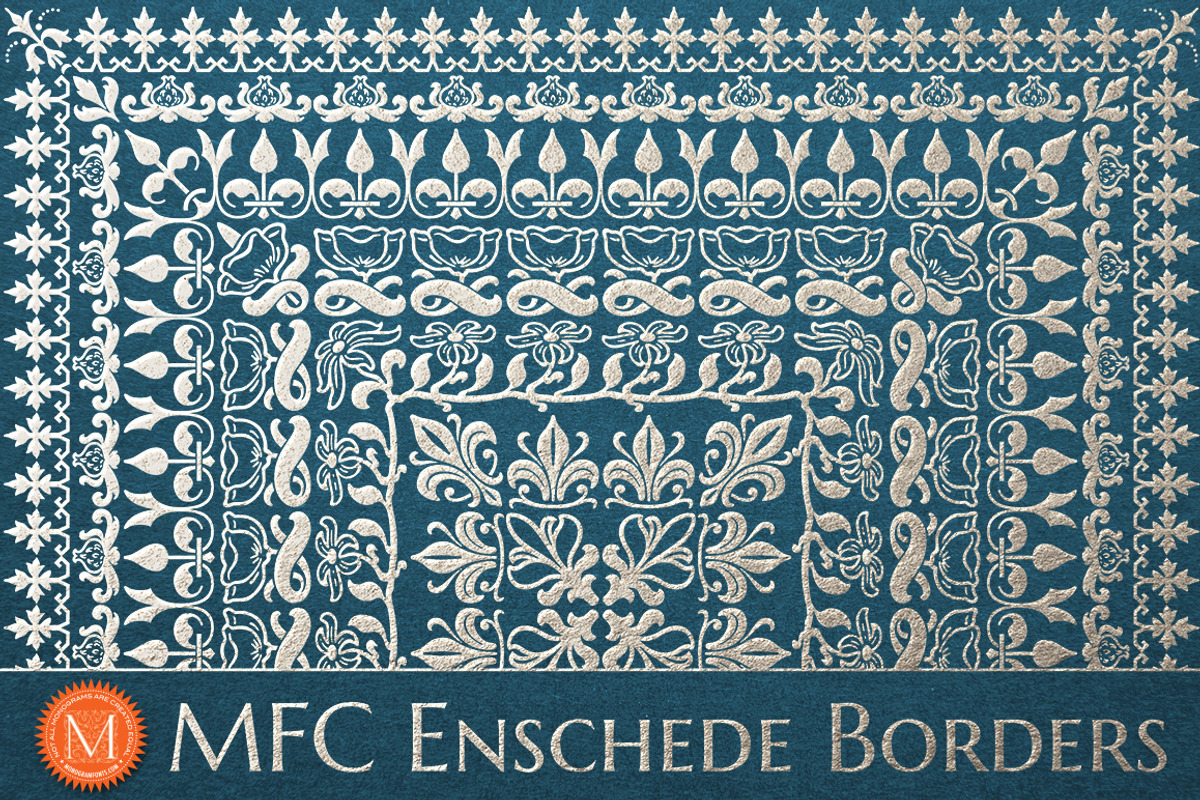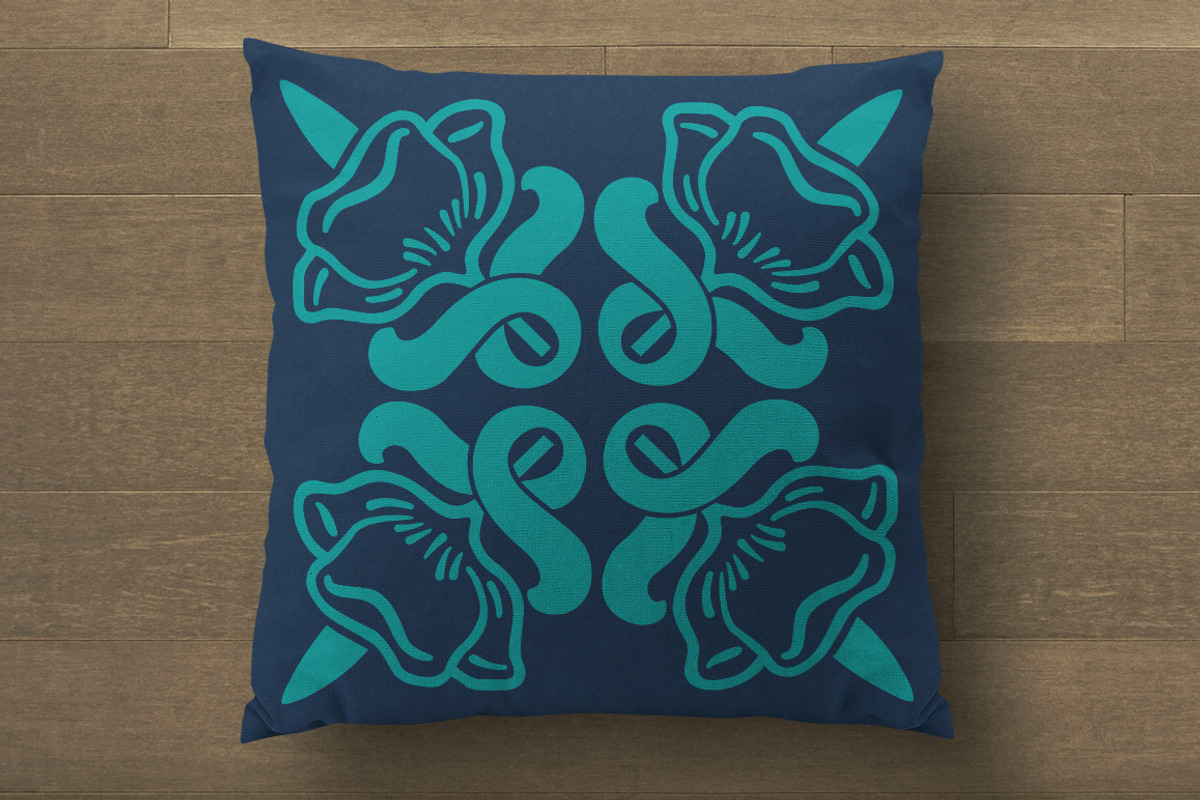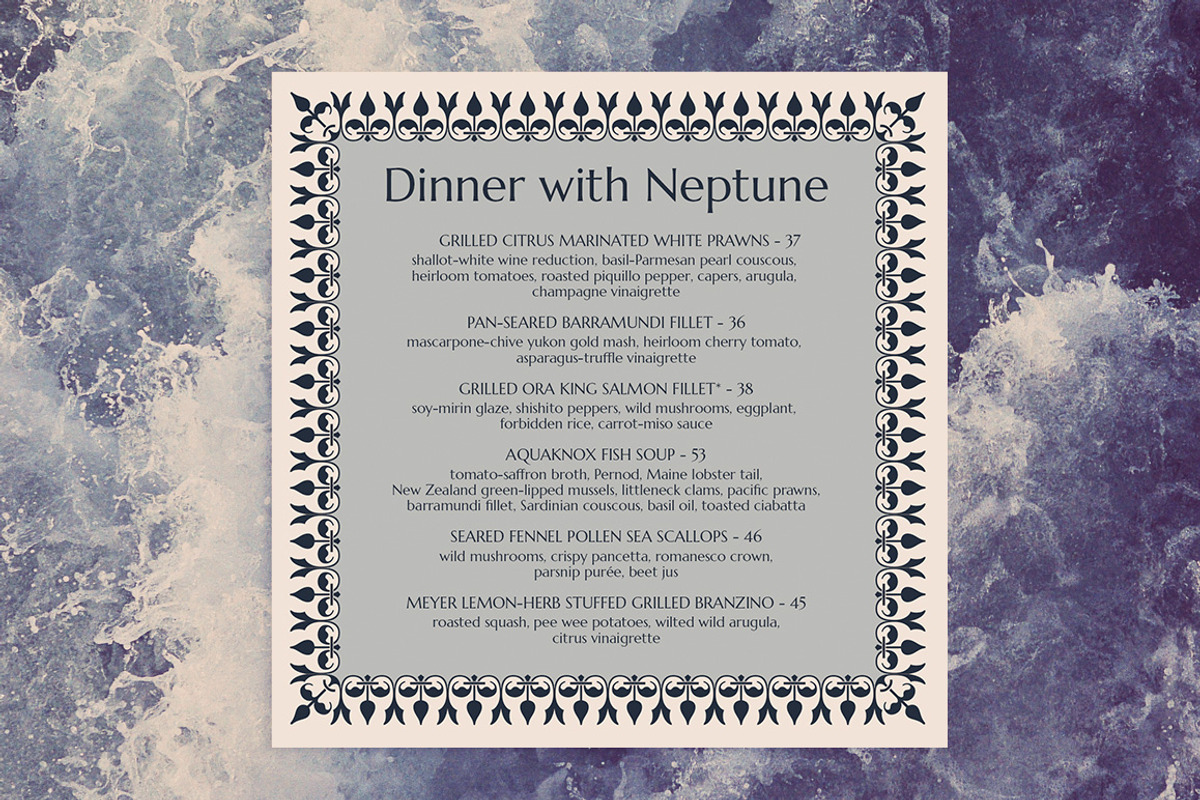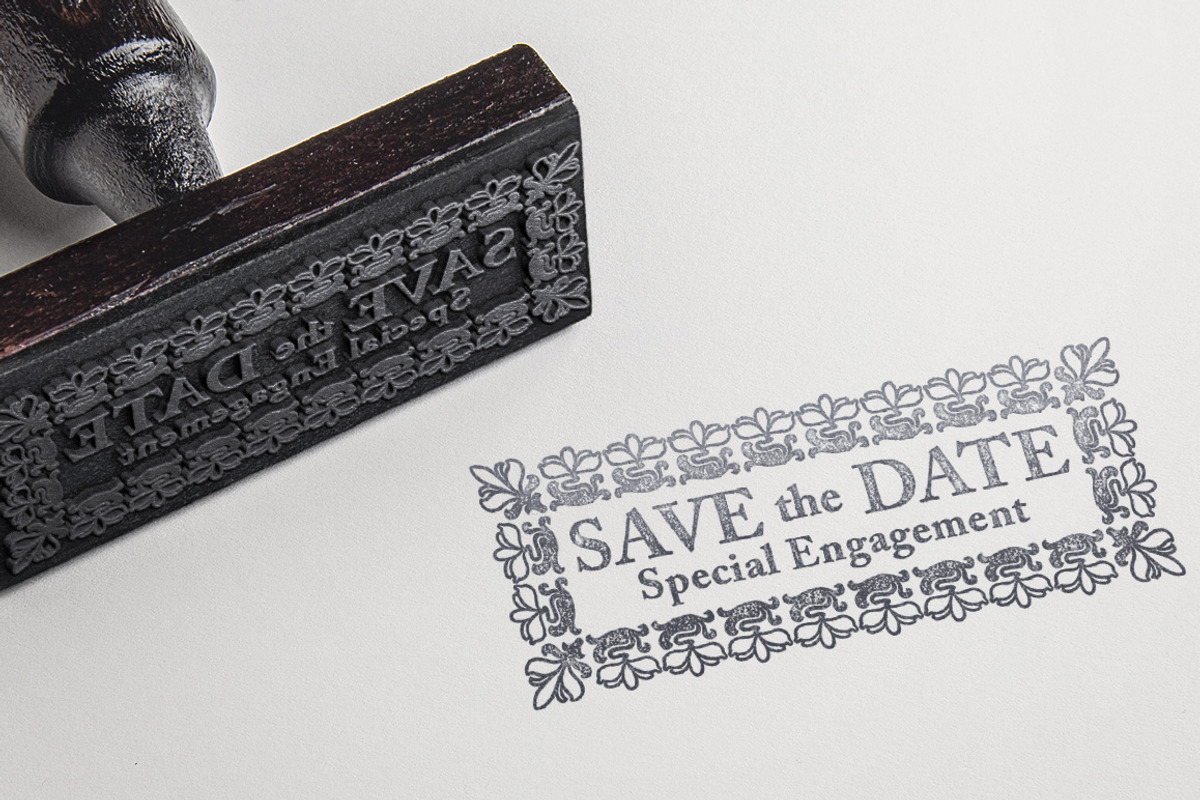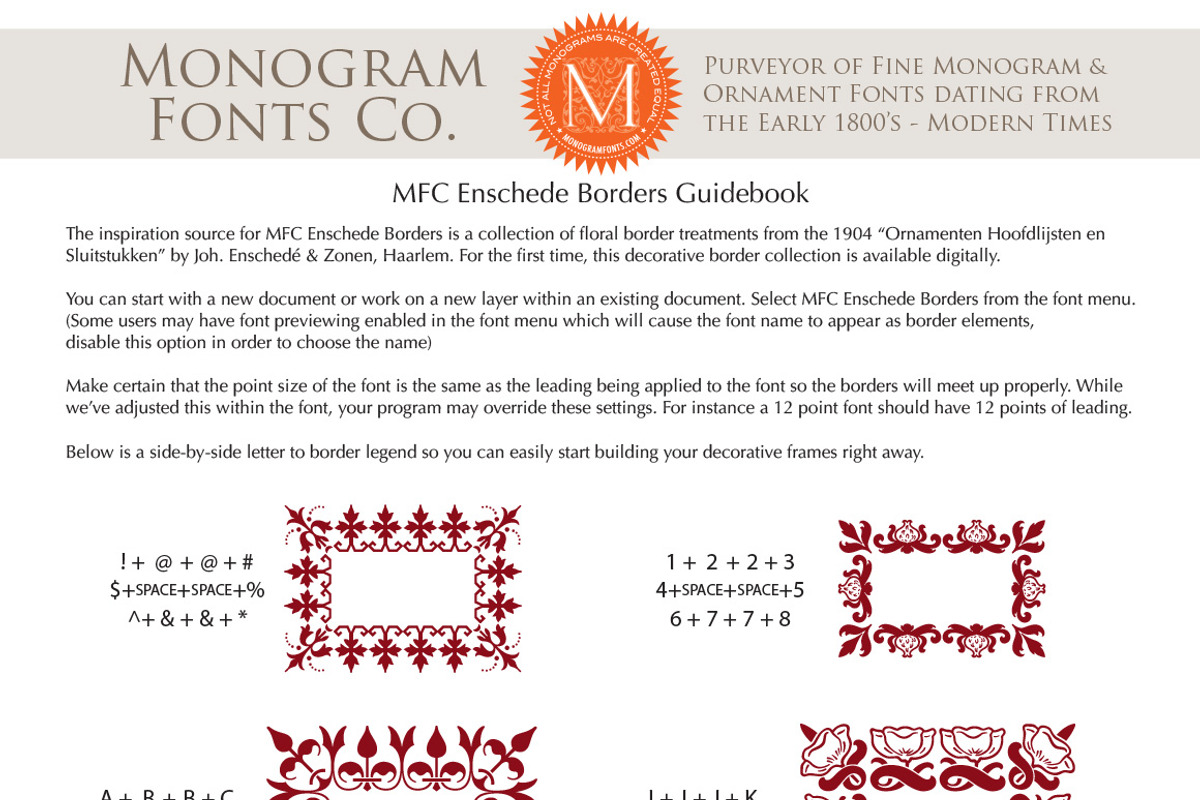
MFC Enschede Borders
MFC Enschede Borders by Monogram Fonts Co. is a font selected for branding, posters, packaging, typography.
Why MFC Enschede Borders is worth a look
MFC Enschede Borders by Monogram Fonts Co. fits naturally into Branding, posters, packaging, typography.